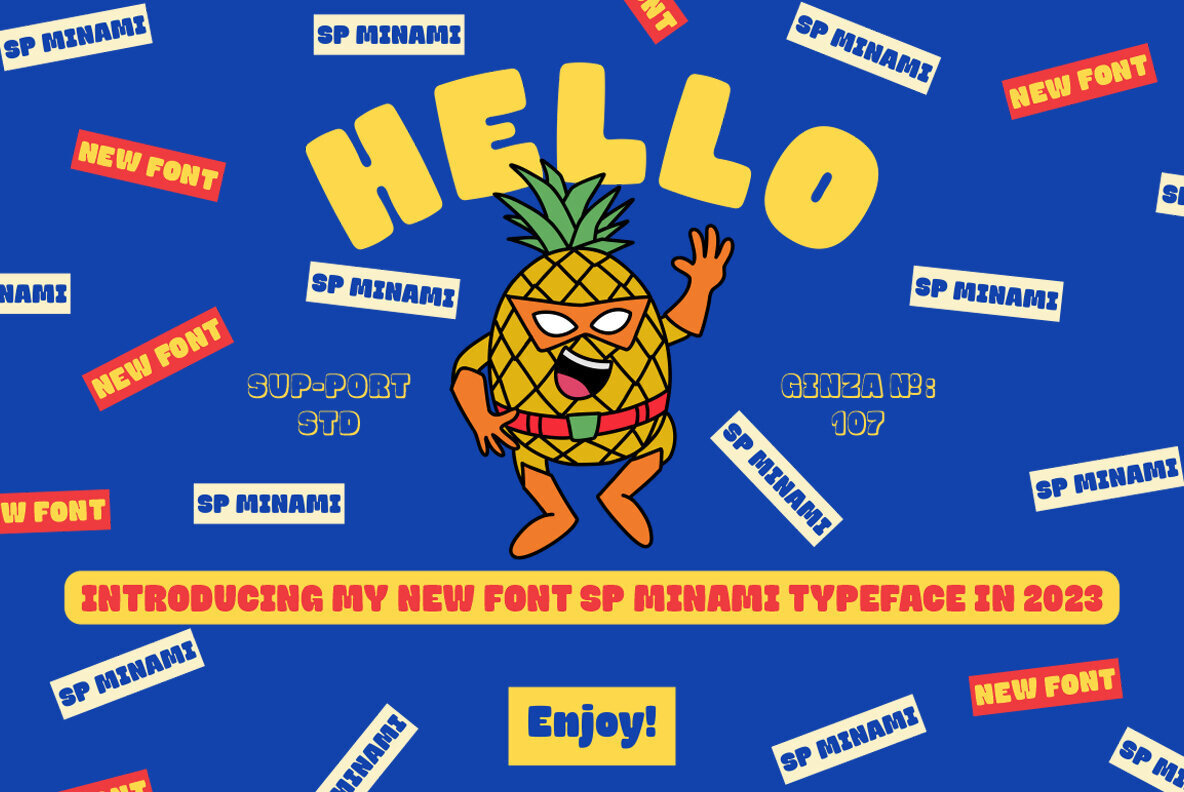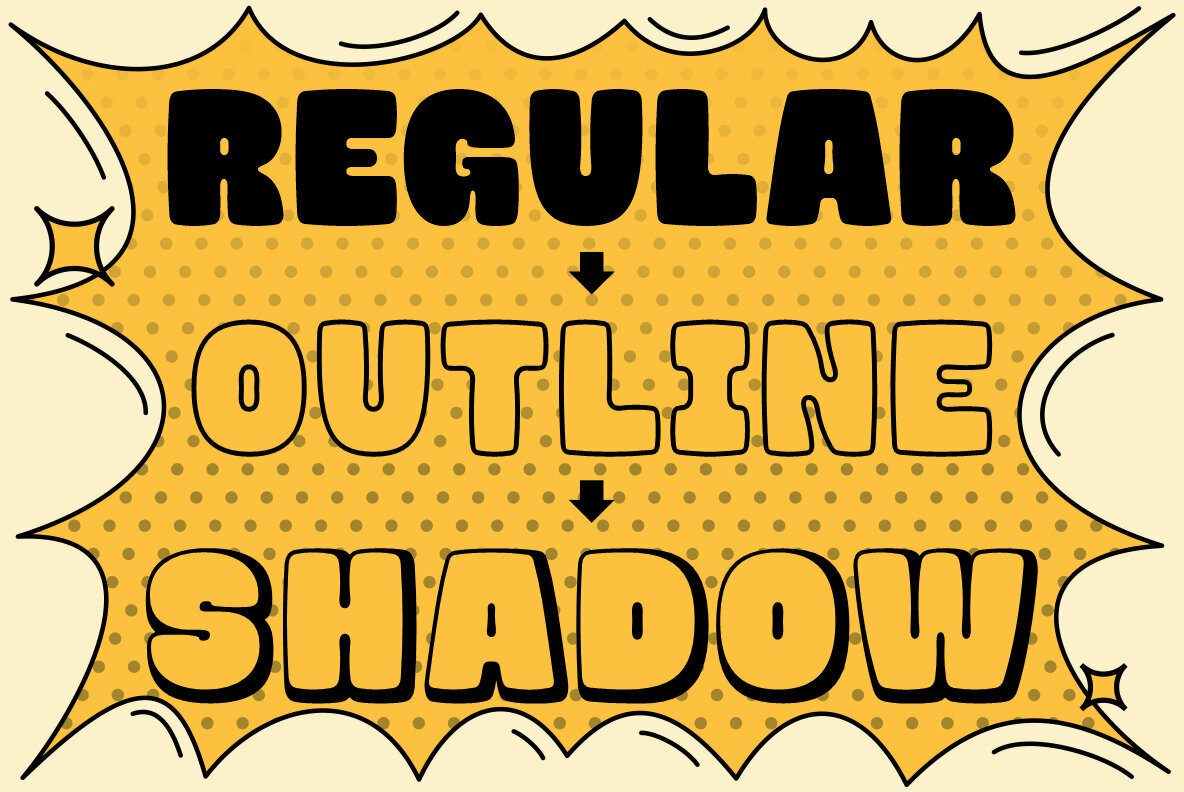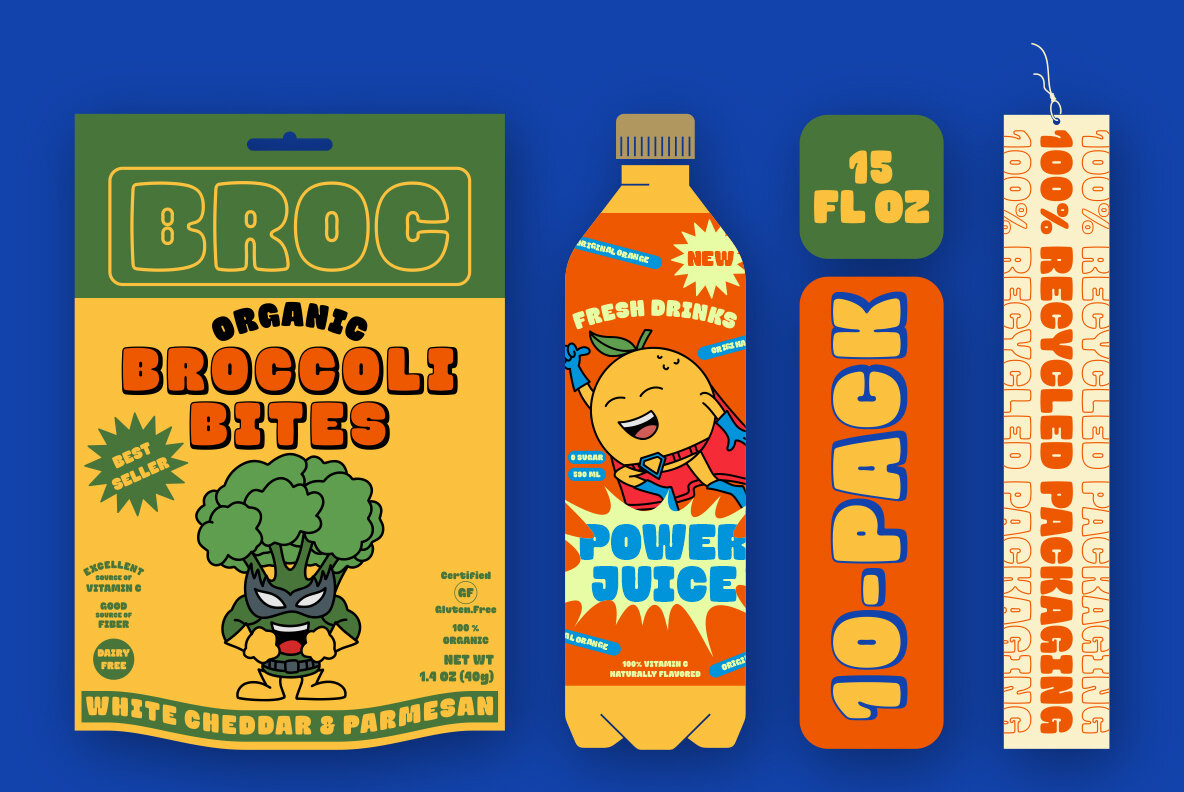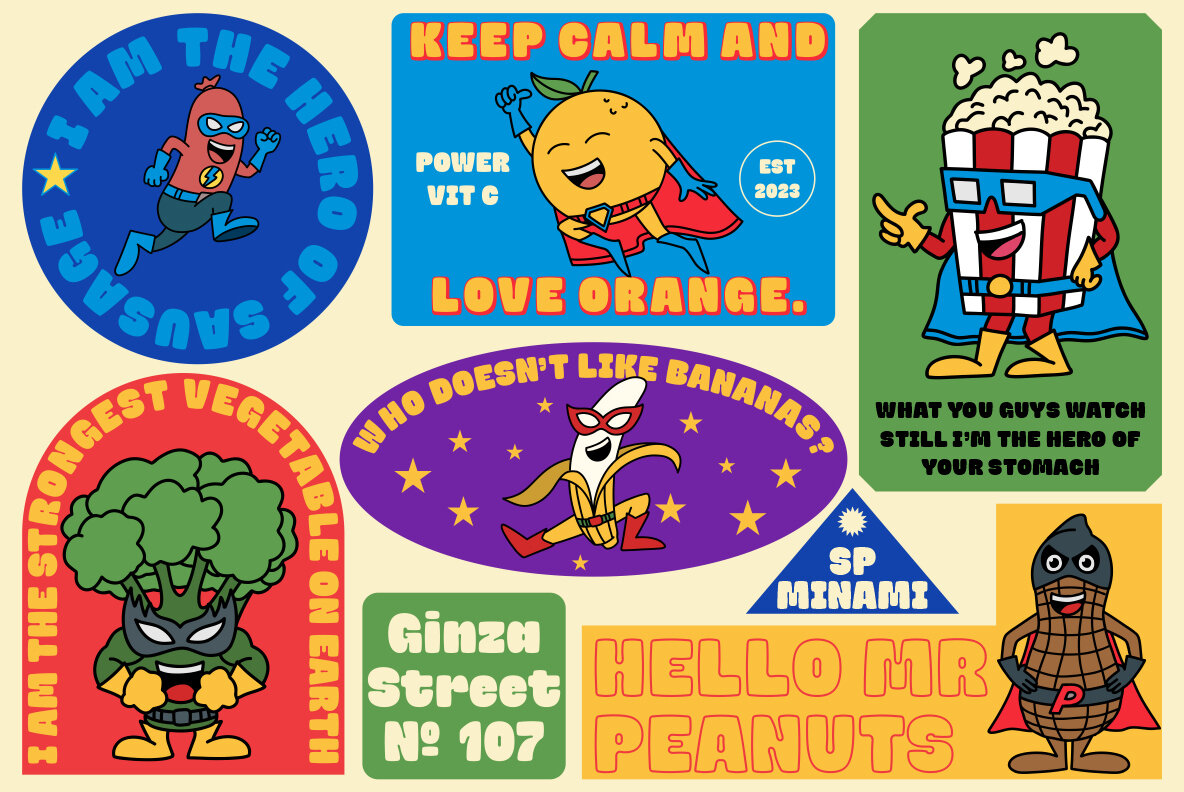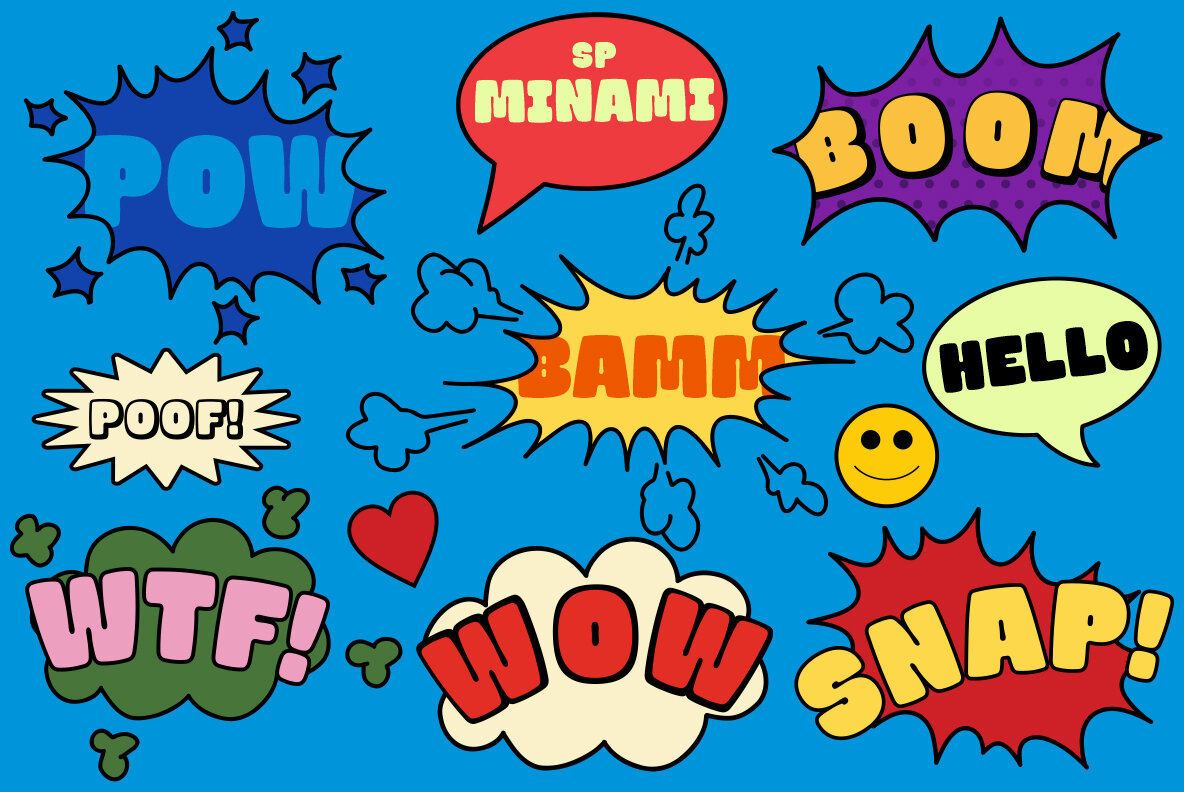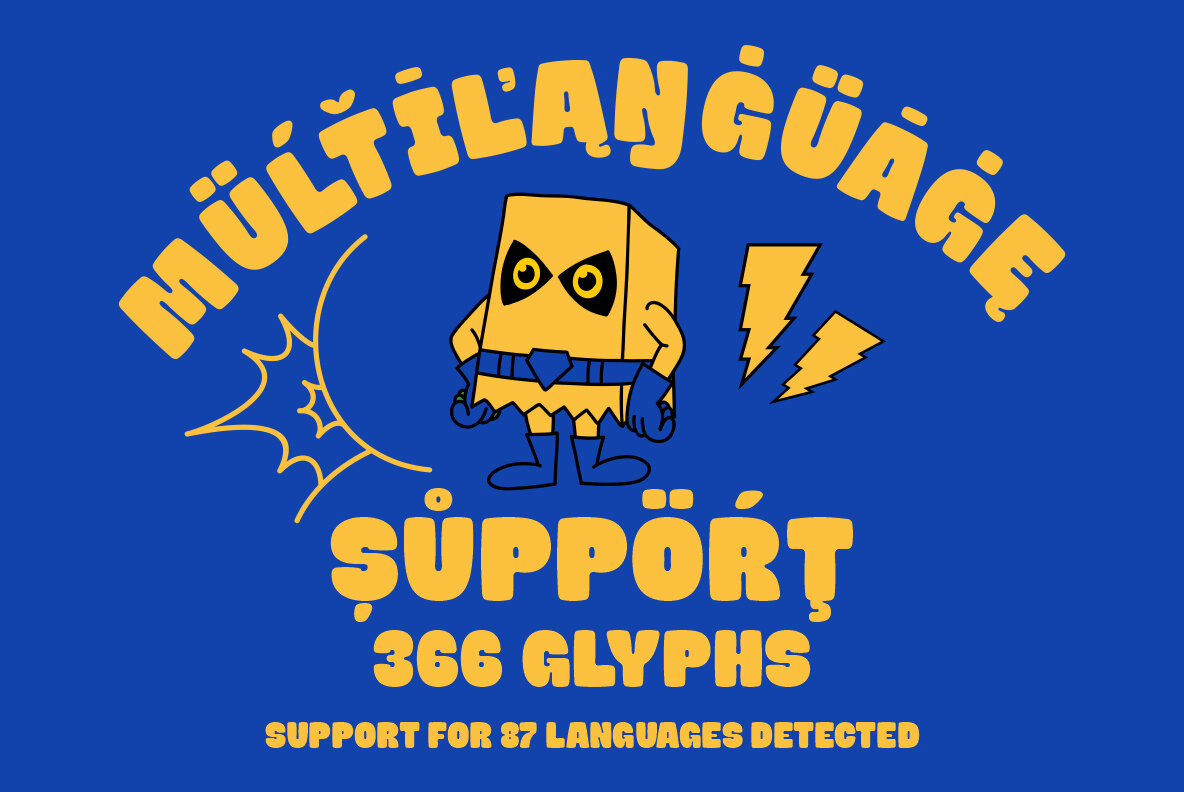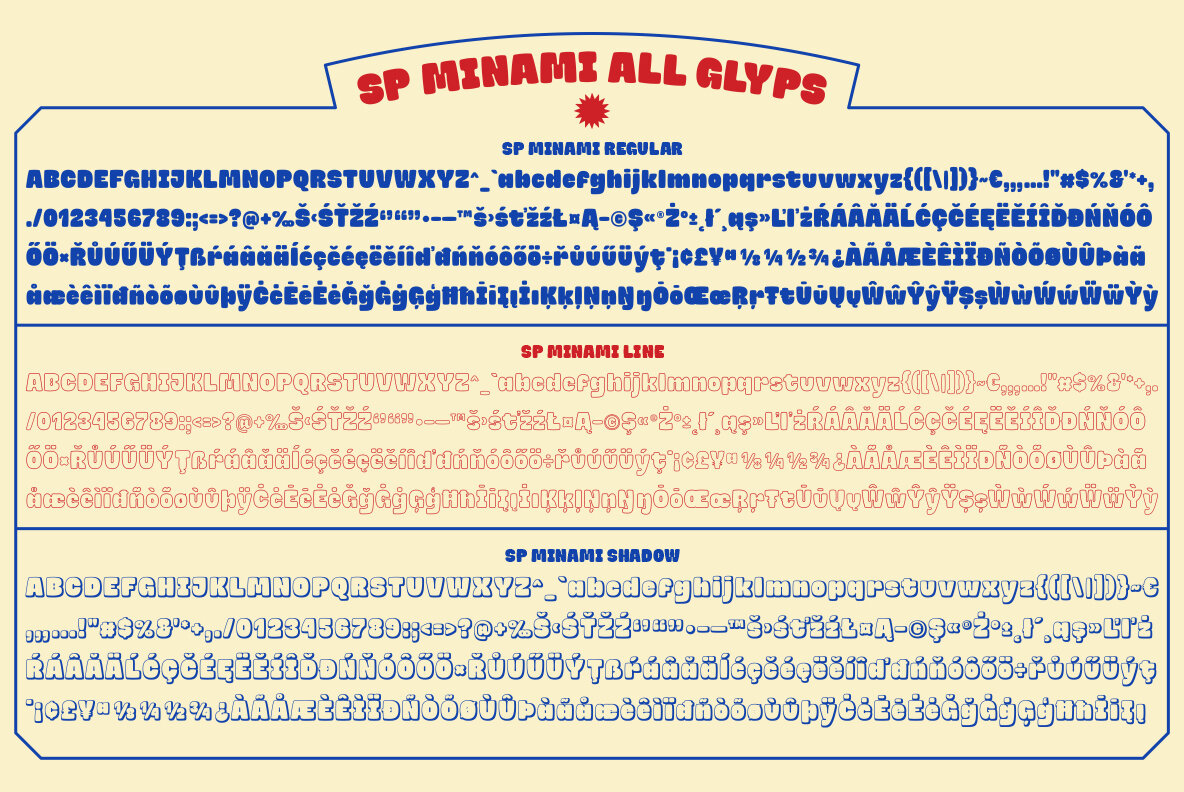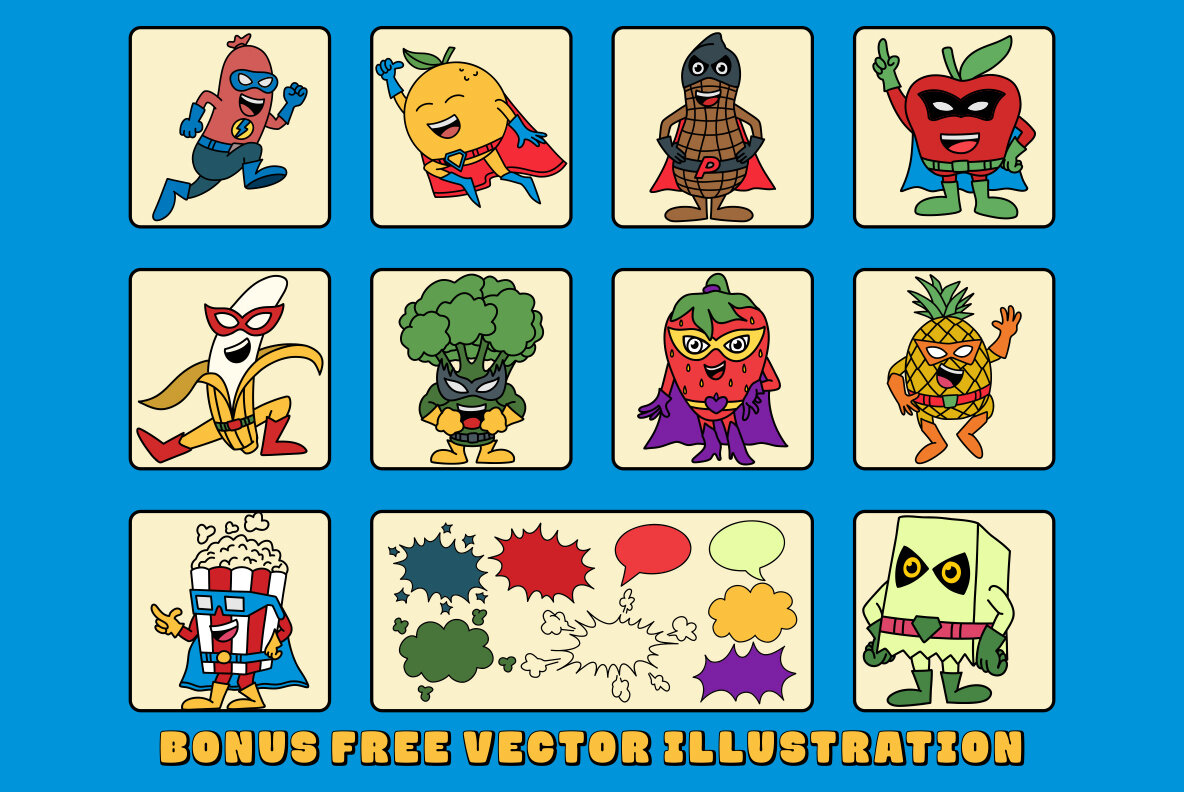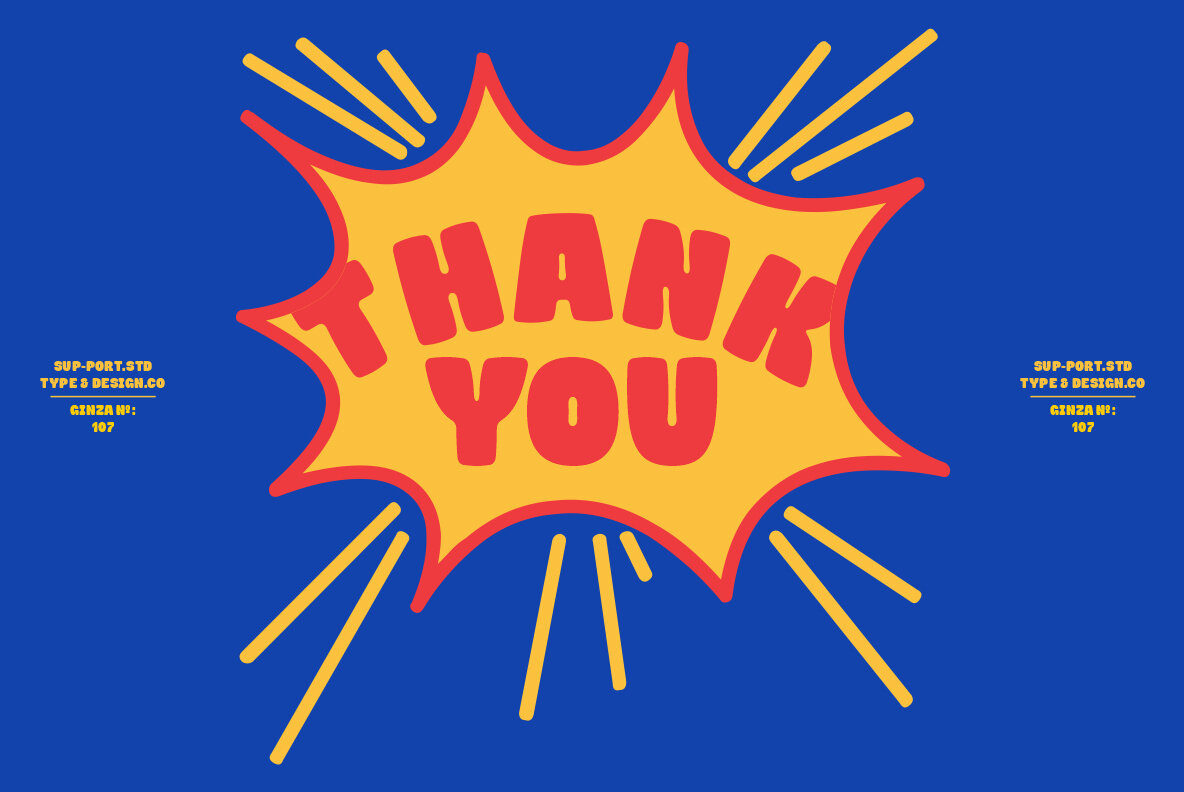
SP MINAMI Font
SP MINAMI, presented by Sup-Port Studio, is a versatile collection of three dynamic fonts—Regular, Outline, and Shadow—accompanied by free playful illustrations. Echoing contemporary trends, this bundle is characterized by its comic style, a sense of happiness, and an overall playful vibe. Perfect for incorporating into a variety of design projects, this typeface adds a vibrant touch to any visual narrative. Whether you're working on graphic designs, logos, t-shirts, print materials, business cards, or branding projects, SP MINAMI offers a meticulously crafted choice that enriches any creative endeavor.SP MINAMI: Dynamic Font Trio with Illustrations